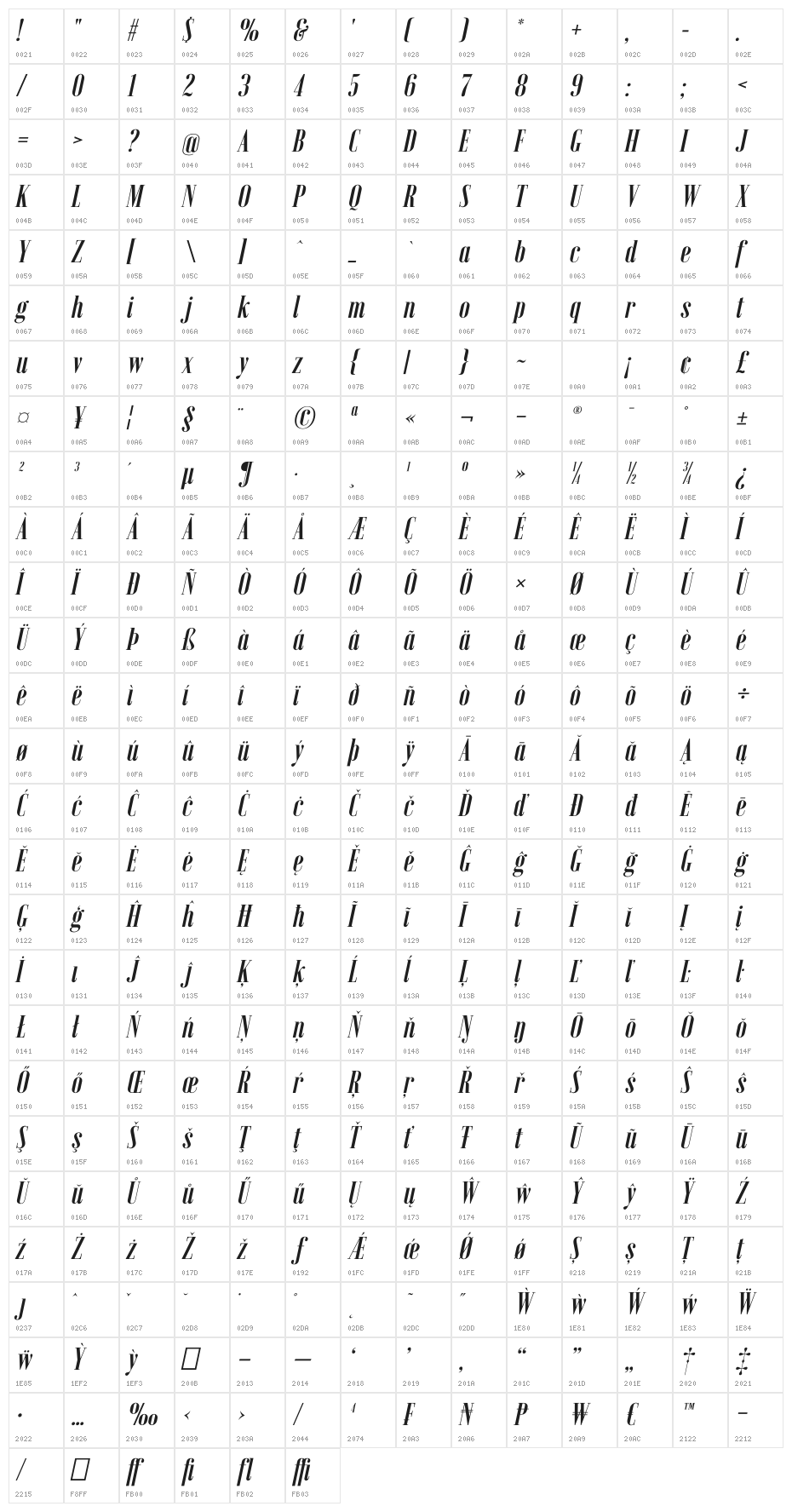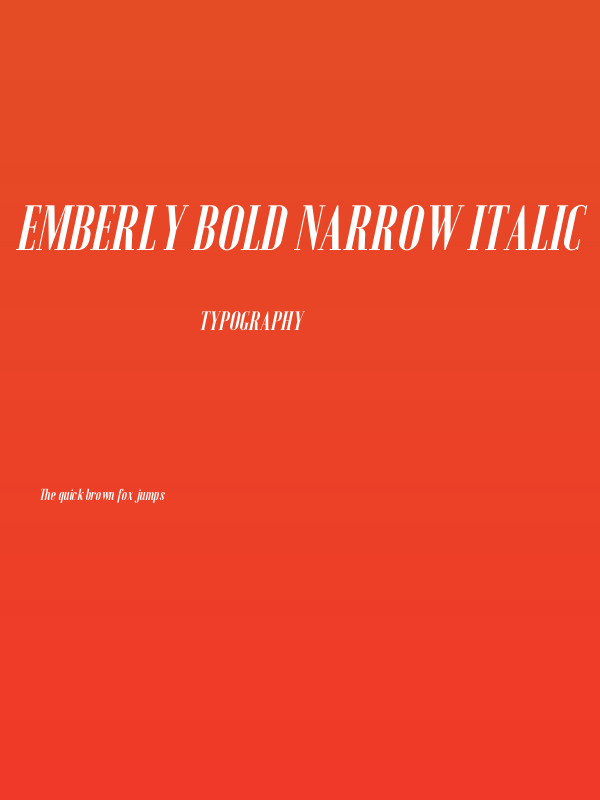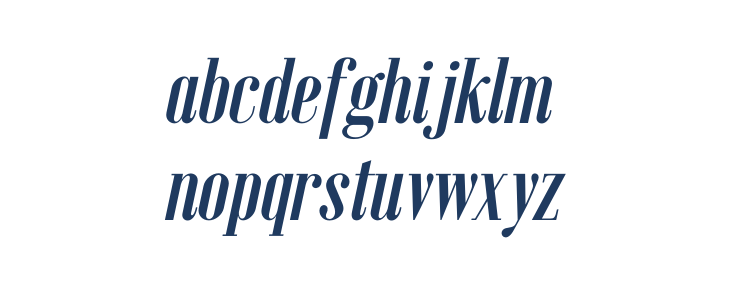
Emberly Bold Narrow Italic Font
Emberly Bold Narrow Italic Description
This font exhibits a bold and narrow design with a distinct italic slant, giving it a dynamic and elegant appearance. The uppercase letters are tall and slender, while the lowercase characters maintain a consistent style with slightly exaggerated curves, enhancing readability. The numerals are well-proportioned, matching the overall aesthetic. Special characters are designed with the same attention to detail, ensuring uniformity across the typeface. The strokes are thick, providing a strong visual impact, and the italic angle adds a sense of movement and sophistication. This font is suitable for projects that require a bold statement with a touch of elegance.